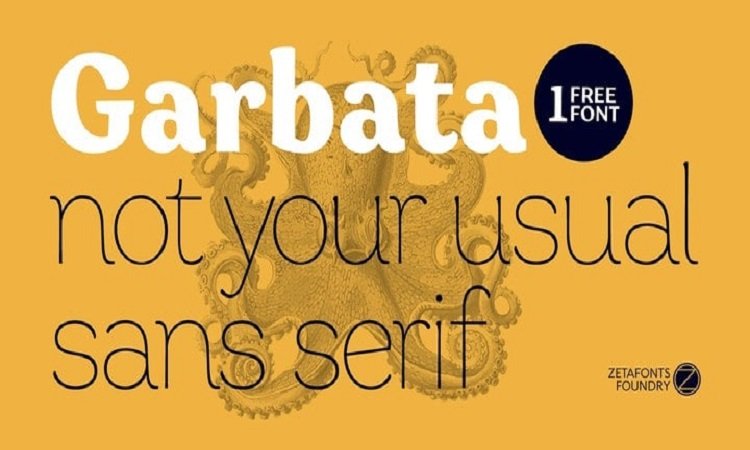
Garbata Serif Font
Garbata Serif Font is a playfully modern serif typeface. Combines classic style fonts moderated with a touch of minimalist design, produces beautiful and elegant fonts.
It takes its skeleton from old style typefaces like Windsor or Cooper, keeping the quirky sloped shapes of some letters and adding to the historical smooth shapes a flat brush calligraphic sensibility.